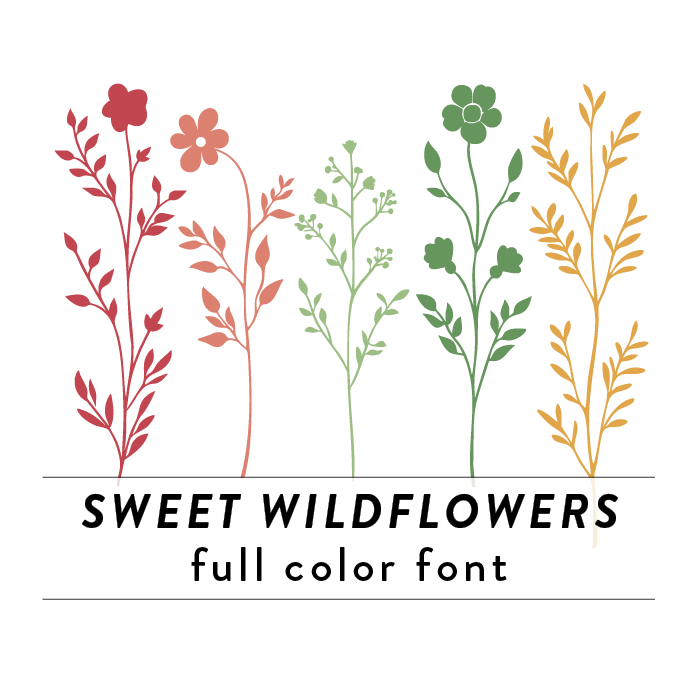
Sweet Wildflowers Full Color Font is a decorative font design inspired by the beauty of blooming flowers in a garden. The font features intricate floral patterns and vibrant colors, giving it a whimsical and charming look. Perfect for adding a touch of nature and elegance to any DIY project related to gardens, weddings, or feminine themes.